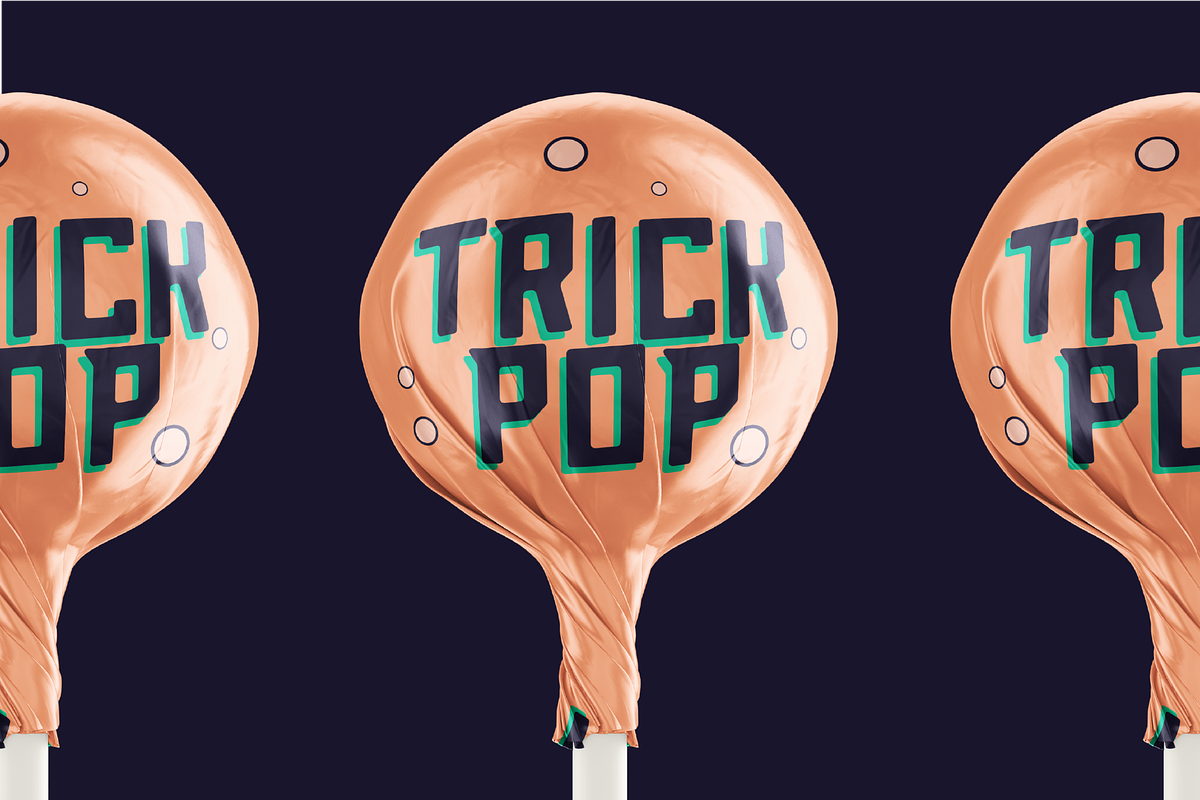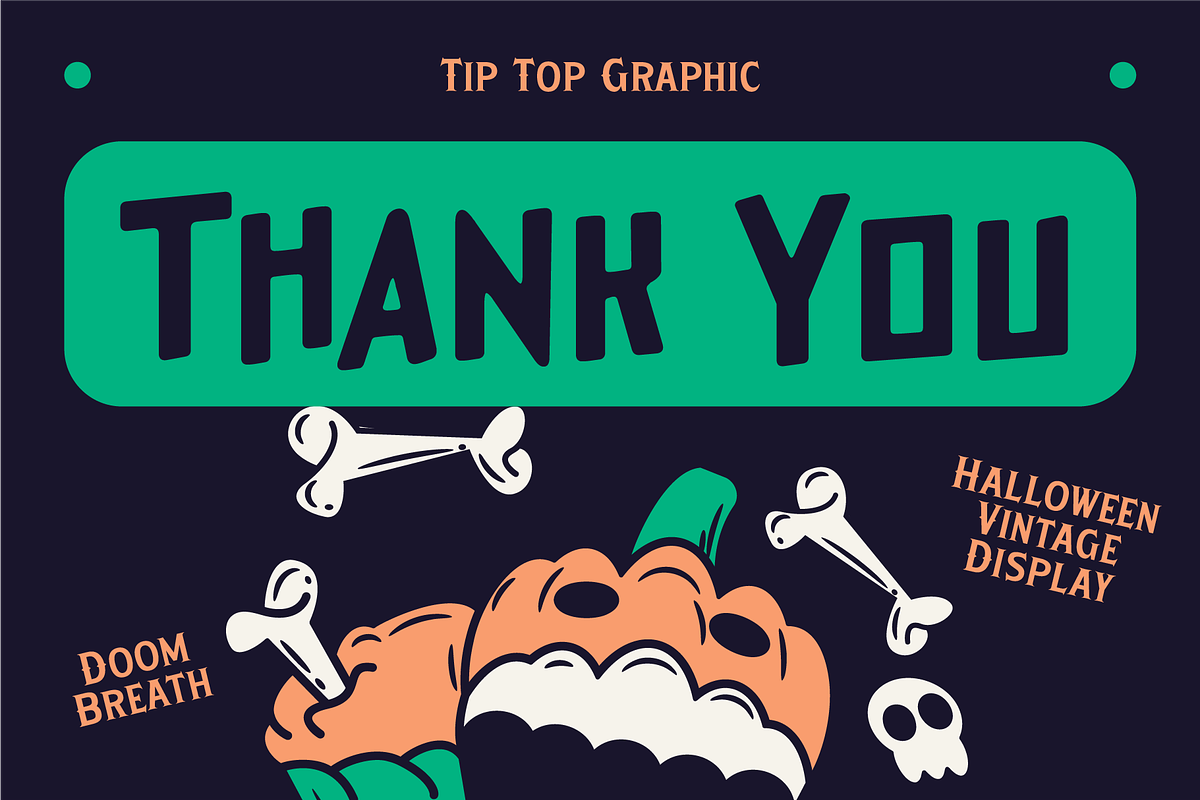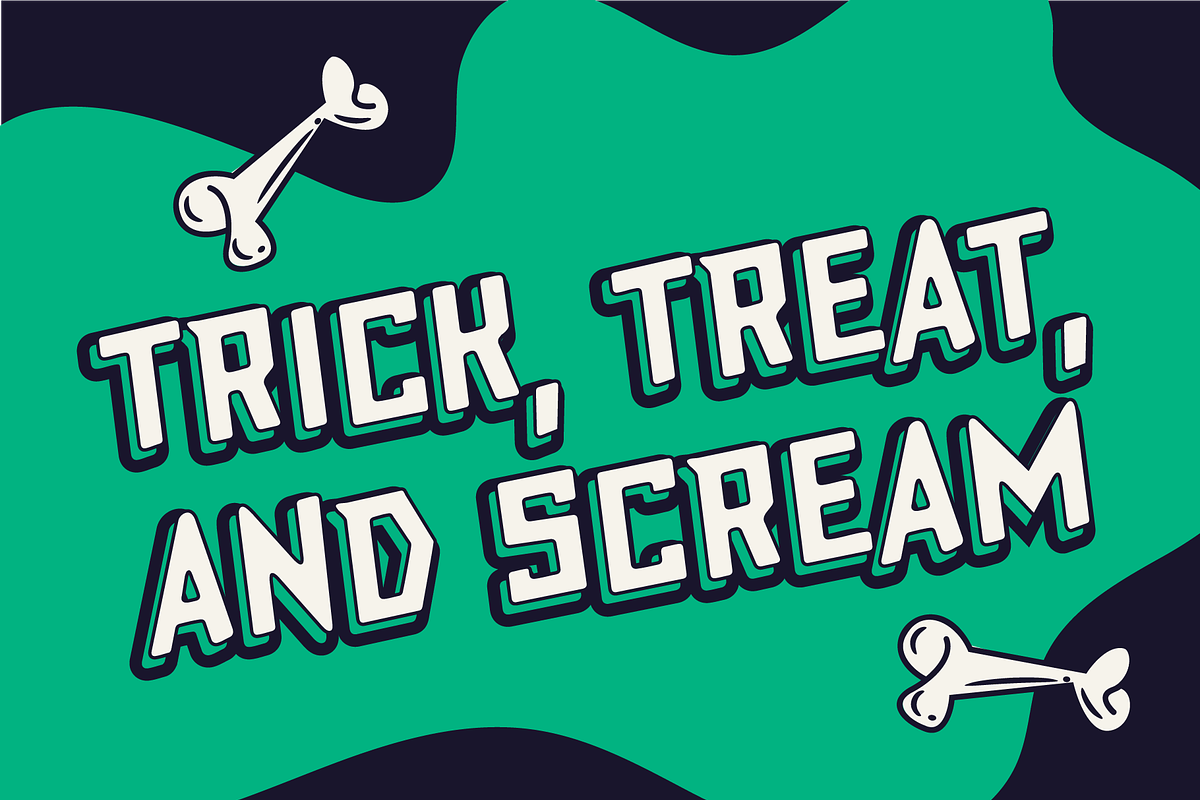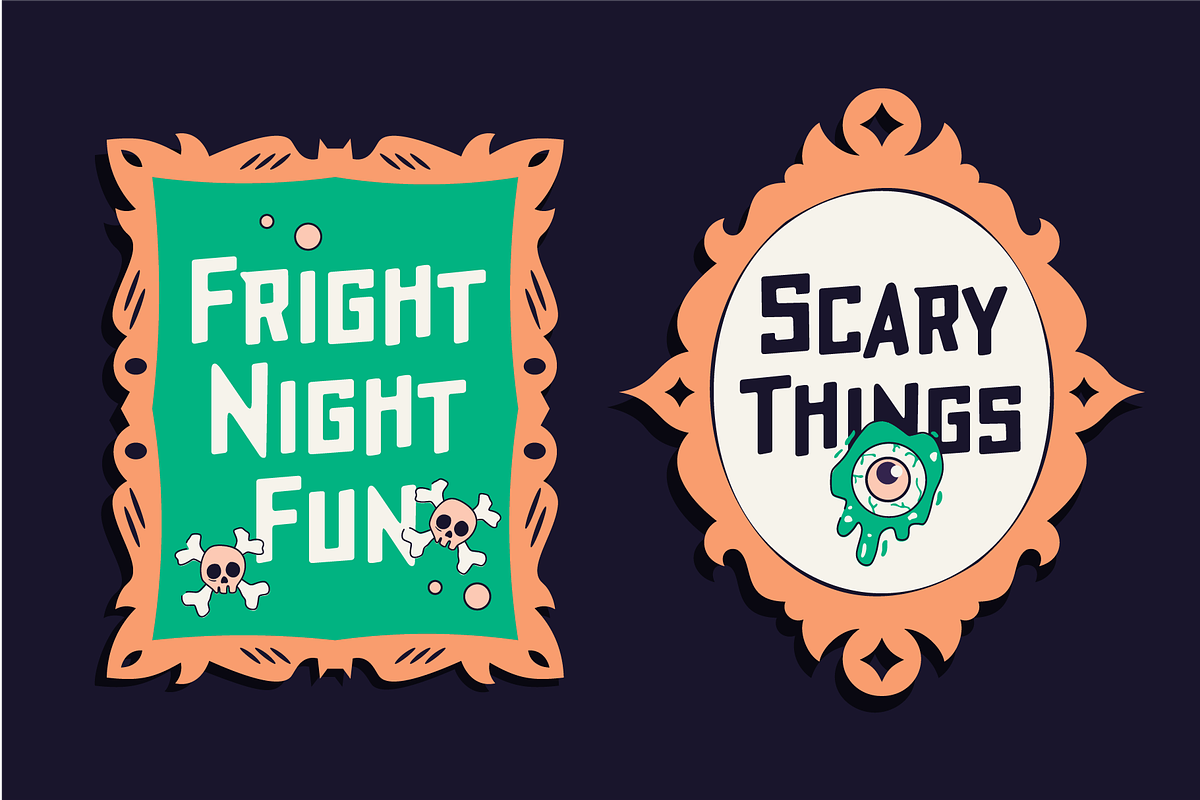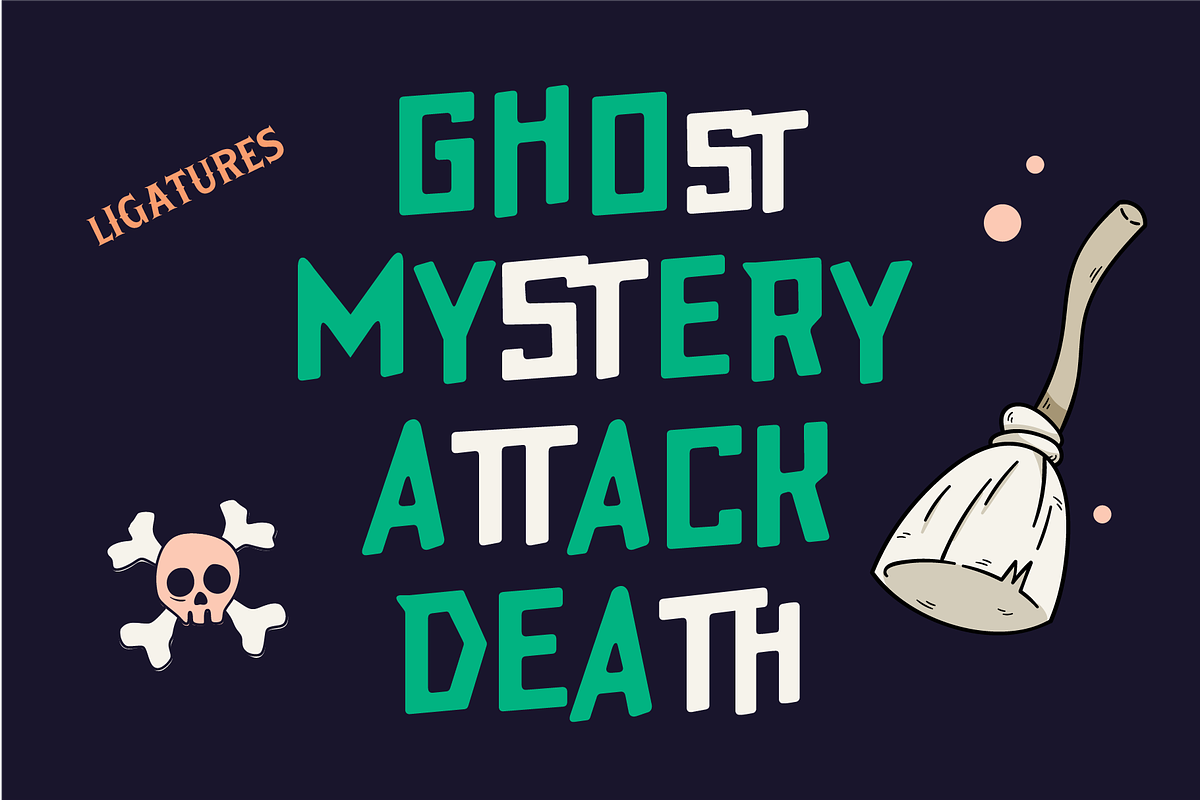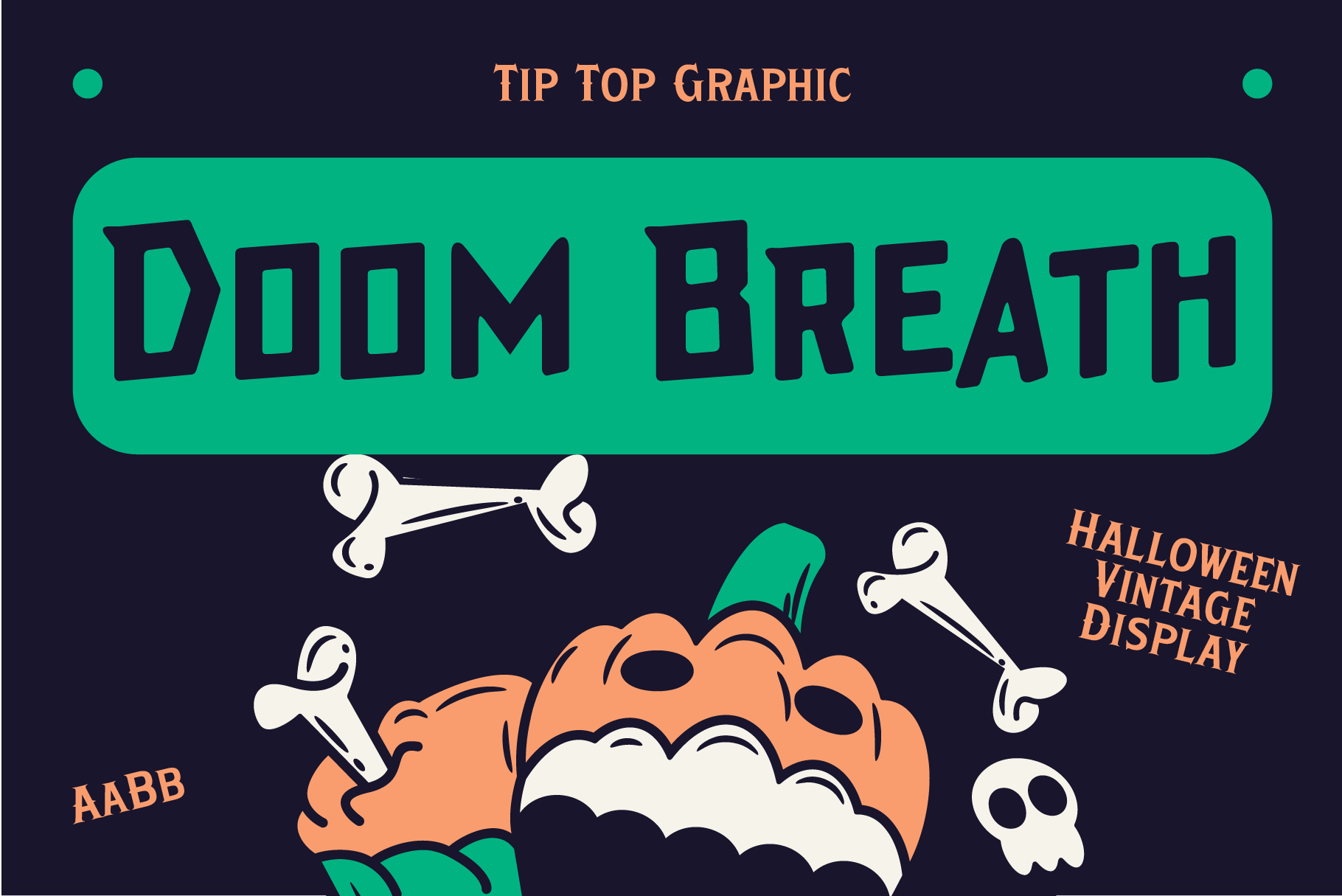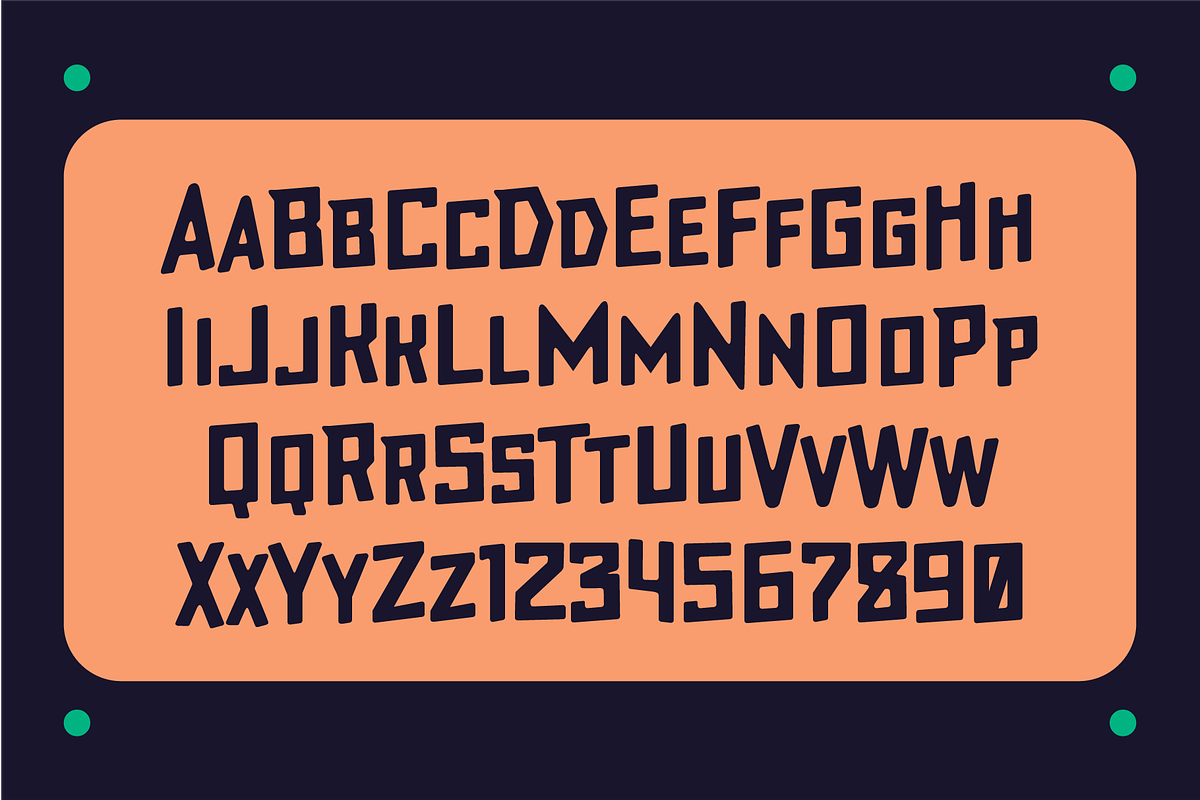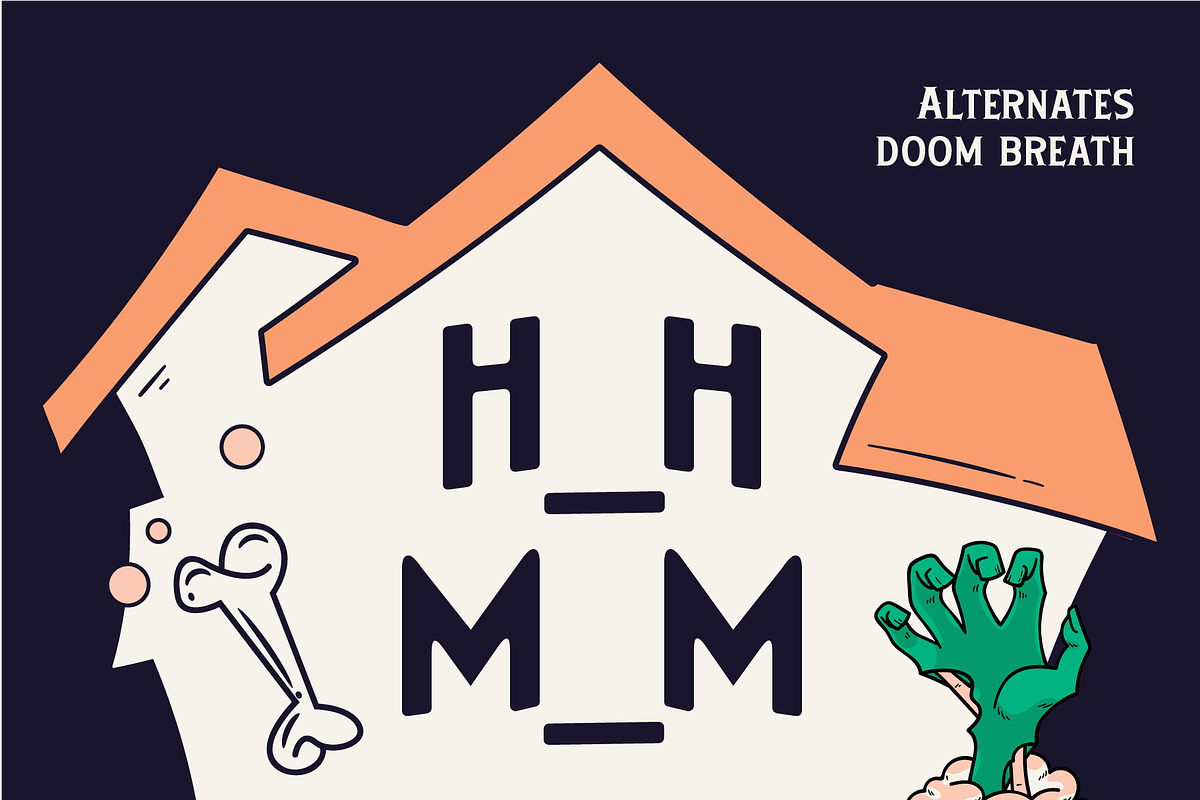
Doom Breath – Halloween Vintage Font
Doom Breath – Halloween Vintage Display Font
Give your designs a haunting vintage touch with Doom Breath, a Halloween-inspired display font that combines eerie character with nostalgic old-school typography. Its bold and distinctive letterforms create a mysterious, dramatic atmosphere while keeping a classic vintage feel.
Perfect for Halloween posters, horror artwork, vintage signage, spooky branding, movie titles, album covers, packaging, invitations, and seasonal merchandise. Whether you’re creating a creepy Halloween campaign or a retro horror-inspired design, Doom Breath brings a dark and memorable personality to every word.